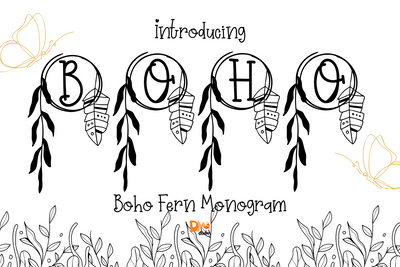
Boho Fern Monogram
Boho Fern Monogram – Elegant Serif Monogram Font with Wild Fern Accents
Boho Fern Monogram is a beautifully balanced serif monogram font featuring graceful uppercase letters adorned with hand-drawn fern details. Rooted in earthy elegance and bohemian spirit, this typeface brings a natural charm to wedding stationery, Cricut projects, personalized branding, and seasonal packaging.
Fern Leaf Illustrations: Each character is paired with organic, flowing fern embellishments for a soft, rustic aesthetic.
Serif Monogram Design: Structured serif letterforms provide clarity and elegance.
Nature-Inspired Harmony: A perfect blend of botanical softness and refined monogram form.